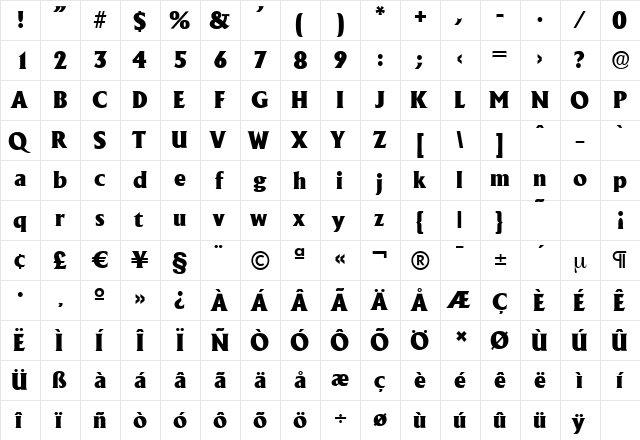
AdelonSerial-Heavy Regular
Design Context for AdelonSerial-Heavy Typeface
AdelonSerial-Heavy is a composed and adaptable typeface that performs quietly and consistently across a wide range of design contexts.